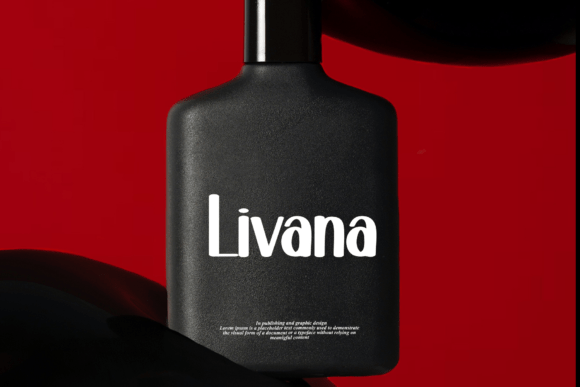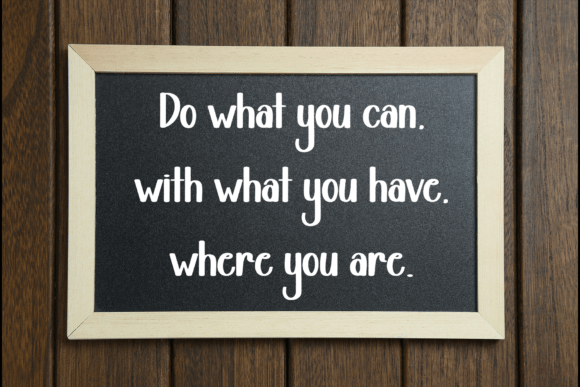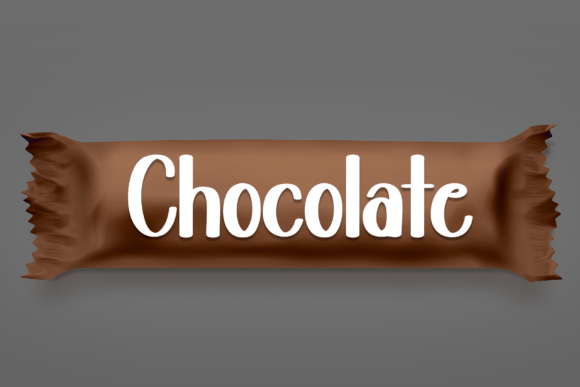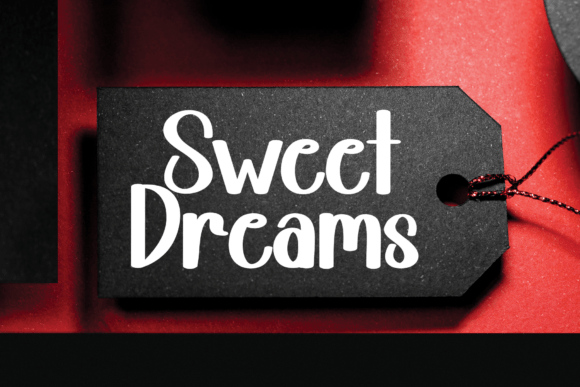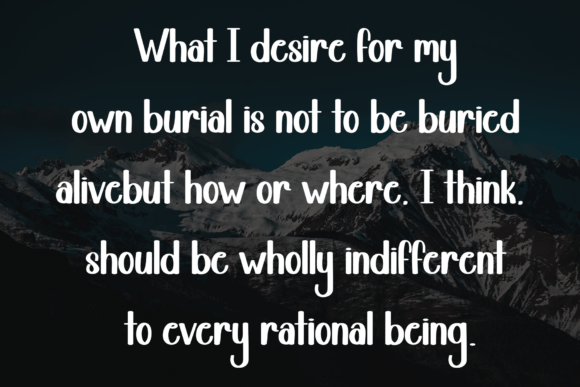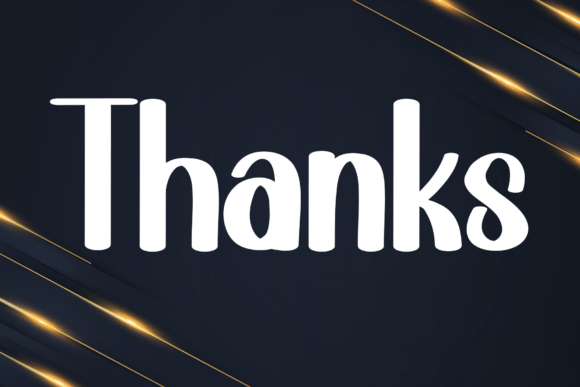
Discover the Charm of Black Alphabet Font: A Sweet and Friendly Handwritten Delight
Are you on the hunt for a font that adds a personal touch to your designs? Look no further than the Black Alphabet Font, a sweet and friendly handwritten font that’s perfect for a wide range of creative projects. With its natural and unique style, Black Alphabet is incredibly versatile, making it an excellent choice for designers and crafters alike.
The Characteristics of Black Alphabet Font
Black Alphabet Font boasts a distinct, handwritten aesthetic that’s both elegant and approachable. Its letters are carefully crafted to exude a sense of warmth and friendliness, making it ideal for designs that require a personal touch. The font’s natural style ensures that it can be easily paired with various design elements, from simple and minimalist to bold and intricate.
What Makes Black Alphabet Font So Versatile?
The only limit to using Black Alphabet Font is your imagination! Its unique style allows it to seamlessly integrate into a vast array of designs, including:
- Digital and Print Materials: Use Black Alphabet Font in your digital and print projects, such as brochures, flyers, posters, and social media graphics, to add a touch of warmth and personality.
- Crafting and DIY Projects: Perfect for crafters, this font can be used in various DIY projects, such as handmade cards, scrapbooking, and journaling.
- Branding and Packaging: Black Alphabet Font can help your brand stand out with its unique and memorable style, making it suitable for logos, product labels, and packaging design.
- Web Design: Add a personal touch to your website with Black Alphabet Font, perfect for headings, titles, and other design elements.
Tips for Using Black Alphabet Font Effectively
To get the most out of Black Alphabet Font, consider the following tips:
- Pair with Contrasting Fonts: Combine Black Alphabet Font with simpler fonts to create visual interest and hierarchy in your designs.
- Experiment with Colors: Try pairing the font with different colors to enhance its natural and friendly style.
- Play with Size and Style: Don’t be afraid to experiment with different font sizes and styles to add emphasis and create visual appeal.
Who Can Benefit from Black Alphabet Font?
Black Alphabet Font is an excellent choice for a wide range of designers and crafters, including:
- Graphic Designers: Looking for a unique and versatile font to add to their collection.
- Digital Artists: Seeking a font that can be used in various digital projects, from illustrations to animations.
- Crafters and Makers: Creating handmade products, such as cards, scrapbook pages, and journals.
- Small Business Owners: Wanting to add a personal touch to their branding and marketing materials.
Black Alphabet Font is a sweet and friendly handwritten font that’s perfect for designers and crafters looking to add a personal touch to their projects. With its natural and unique style, this font is incredibly versatile and can be used in a wide range of creative applications. Whether you’re a seasoned designer or a crafty DIY enthusiast, Black Alphabet Font is sure to become a favorite in your collection.